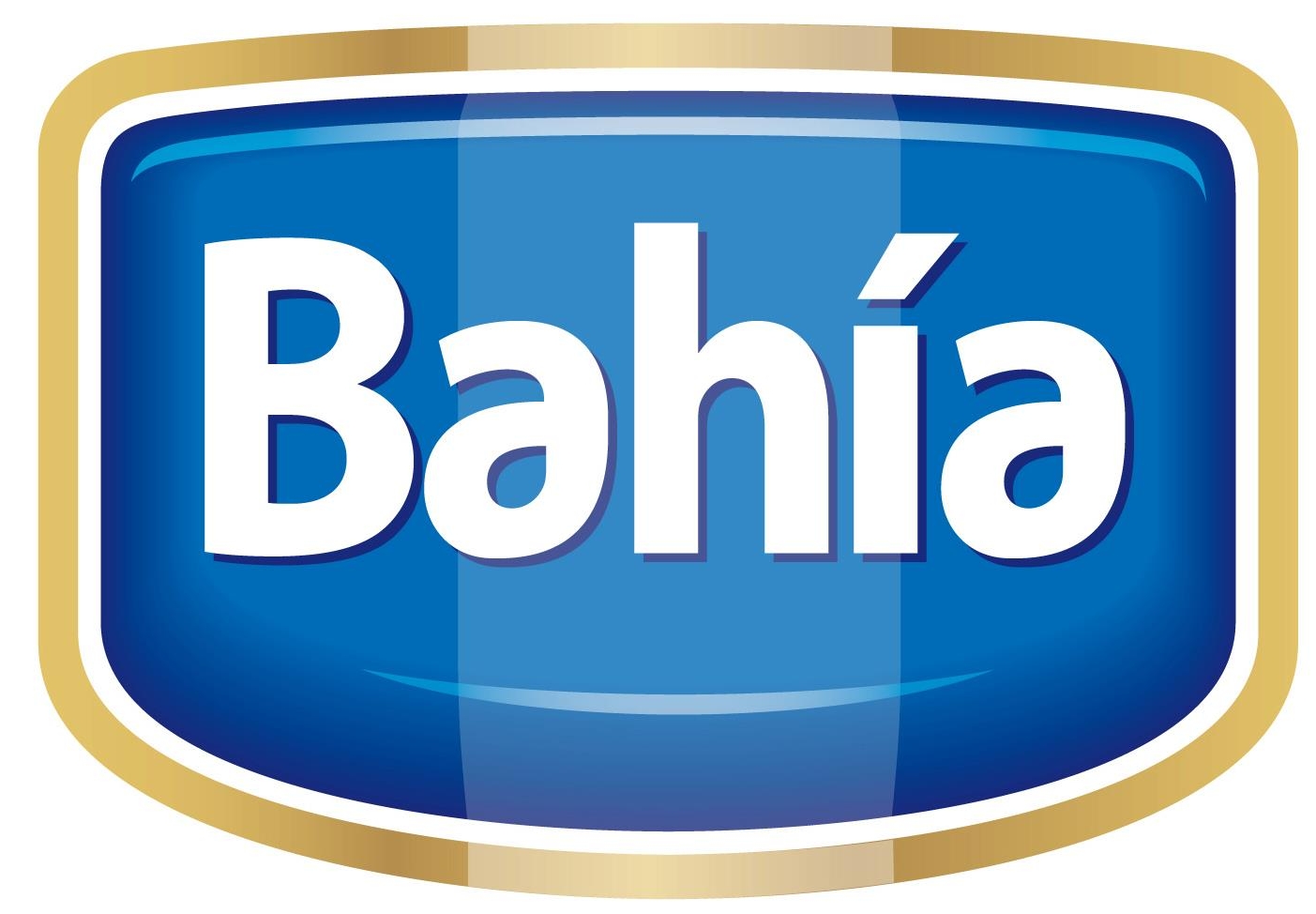
Spurless lowercase "a" font
Actually, no to the upside-down /e although that is a good way to fake it. The original clearly shows a straight line in the counter; the /a was modified. Otherwise it really is Myriad.